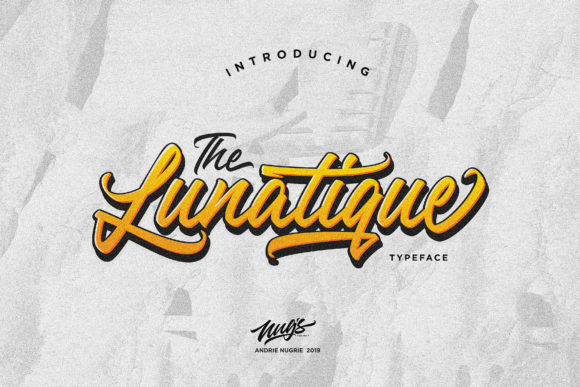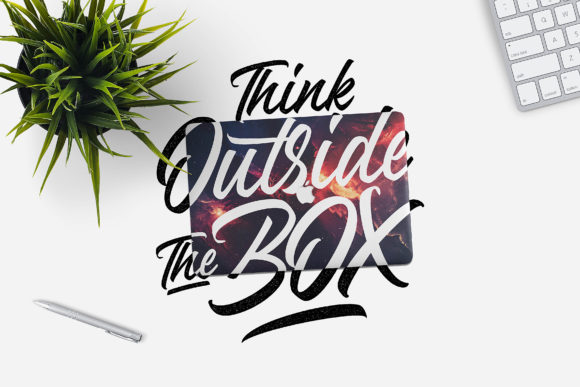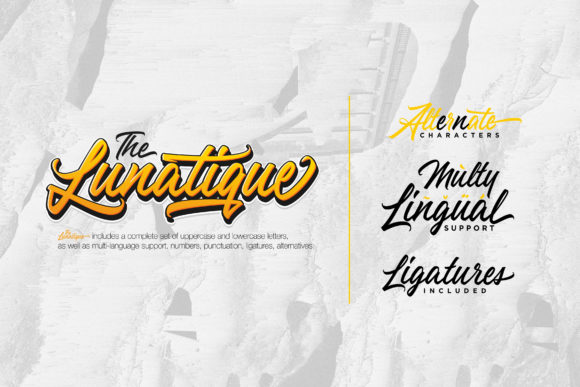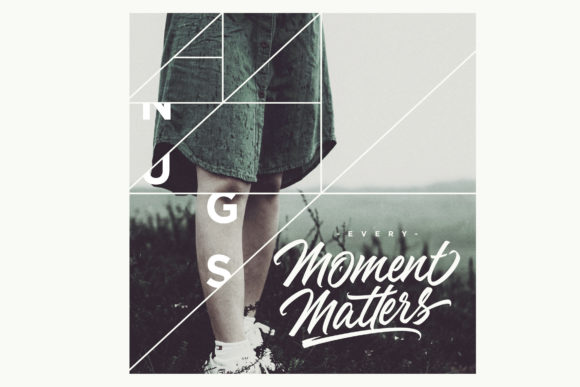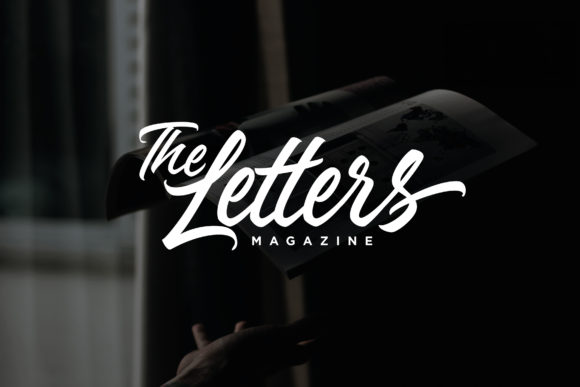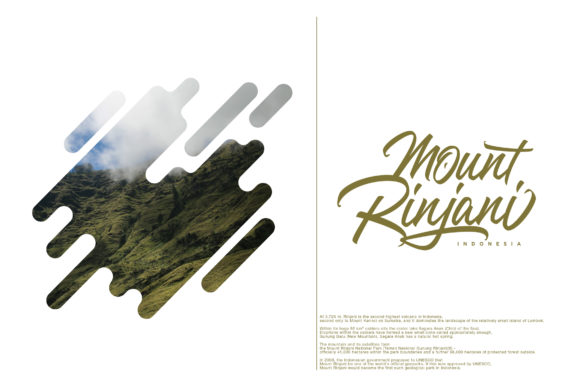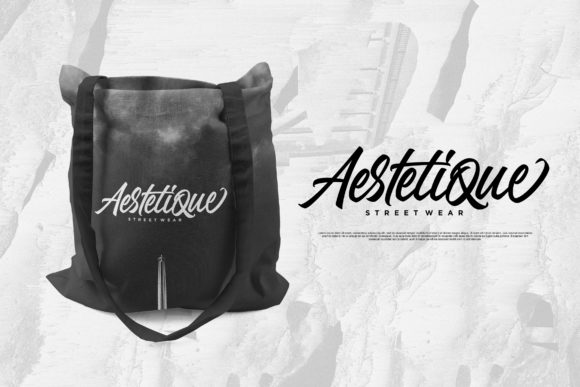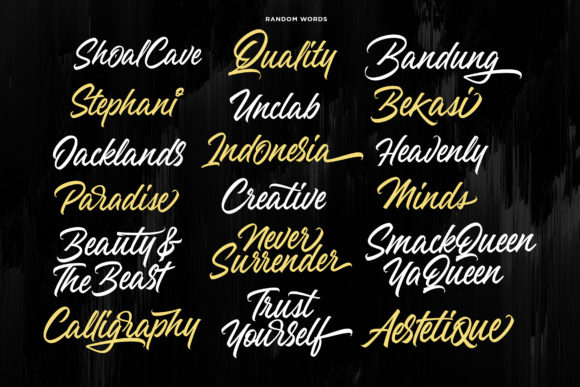
The Lunatique Font
About The Lunatique Font
The Lunatique is a brush script font with a dynamic and energetic style. It can used for various purposes such as titles, signatures, logotypes, t-shirt designs, letterheads, signage’s, labels, newsletters, posters, badges, and every other design which needs an unique, striking font.